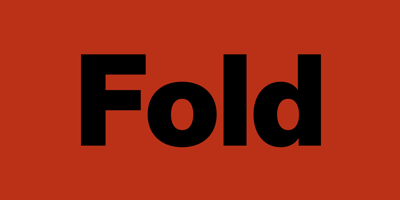
Militia Sans Font is perfect for military-themed projects, tactical branding, gaming interfaces, action movie posters, sports team logos, automotive designs, industrial equipment labeling, security company branding, outdoor adventure campaigns, and corporate presentations that require a strong, authoritative presence.
What makes Militia Sans Font so exciting is its powerful combination of clean geometric lines with bold, commanding presence. This typeface delivers immediate impact through its structured design that conveys strength, reliability, and precision. Its sans-serif architecture ensures maximum readability while maintaining an assertive character that demands attention and respect from viewers.
Militia Sans Font family includes comprehensive weight variations: Thin, Light, Regular, Medium, Bold, Extra Bold, Black, plus corresponding Italic versions. Additionally, it offers Condensed and Extended variants, providing designers with extensive flexibility for creating dynamic layouts and establishing clear typographic hierarchies across different design applications.
The strategic design of Militia Sans Font Free Download makes it exceptionally versatile for both digital interfaces and print materials. This font performs excellently in high-contrast environments, maintaining legibility even in challenging conditions. Its modern approach to sans-serif design ensures compatibility with contemporary design trends while its robust character gives projects an unmistakable edge. Whether used for headlines, body text, or user interface elements, this typeface consistently delivers professional results that communicate strength and dependability to target audiences.